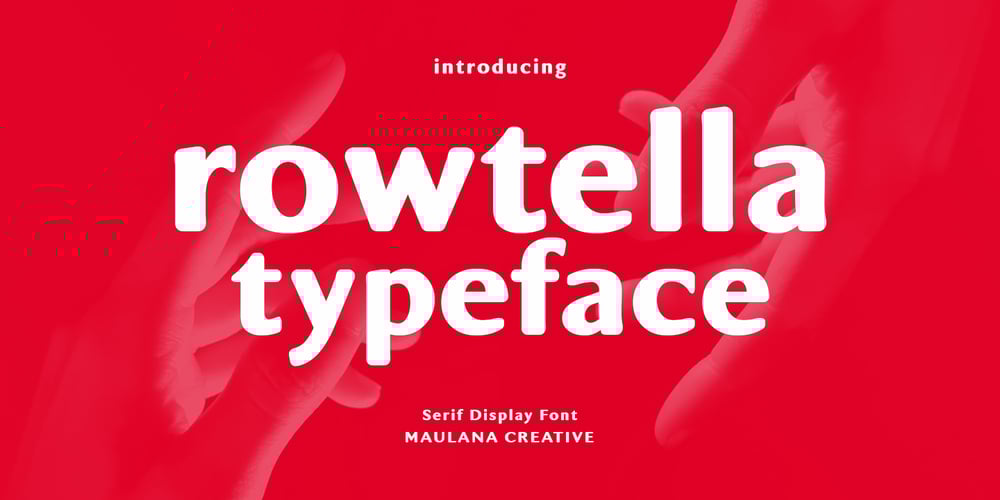
MC Rowtella Font Family was designed by Gilang Maulana and published by Maulana Creative. MC Rowtella contains 1 styles and family package options. Rowtella is Display Flare serif font. Regular stroke, fun character with a bit of ligatures and alternates. To give you an extra creative work. Rowtella font support multilingual more than 100+ language. This font is good for logo design, Social media, Movie Titles, Books Titles, a short text even a long text letter and good for your secondary text font with script or serif. Make a stunning work with Rowtella font. Cheers, Maulana Creative